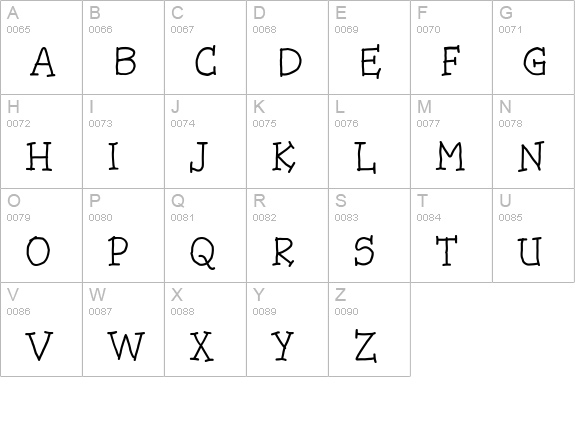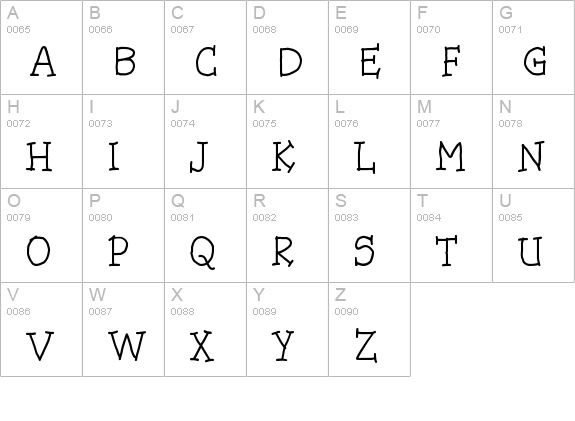
GweetHmk Font Details
Introducing GweetHmk font, a stylish and modern typeface that exudes elegance and sophistication. This font is perfect for a wide range of design projects, from branding and advertising to invitations and packaging. With its sleek lines and unique flair, GweetHmk will make your text stand out and capture the attention of your audience. The best part? GweetHmk font is completely free to download at FontsMarket.com. Yes, you read that right - you can enhance your designs with this stunning font at no cost. So why wait? Elevate your projects with GweetHmk and make a lasting impression today!